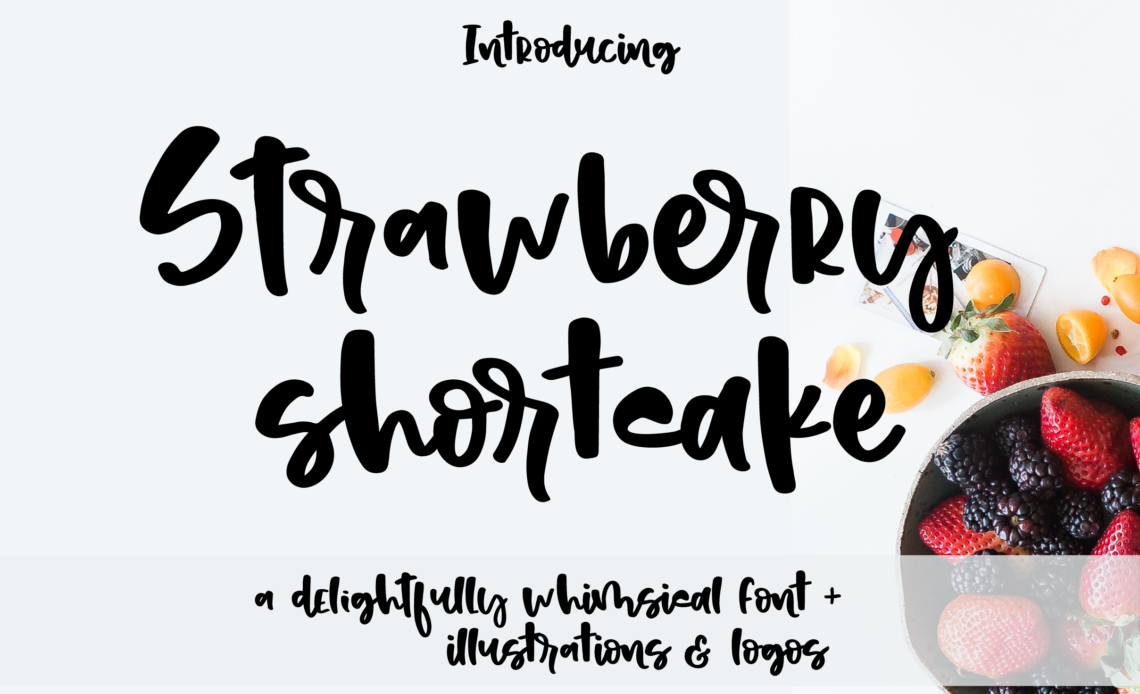
Strawberry Shortcake Font
Step into a world of delightful charm and whimsical elegance with Strawberry Shortcake Font, a captivating script font that dances off the page with its playful and enchanting aura. Crafted with meticulous care and love by the talented artists at theinkaffair, this font is a masterpiece of digital artistry that will transform your creative projects into captivating visual feasts.
As its name suggests, Strawberry Shortcake Font exudes a sweet and inviting charm, reminiscent of sun-ripened berries and freshly baked treats. Its carefully crafted curves and flourishes evoke a sense of joyous celebration, making it the perfect choice for adding a touch of lightheartedness and playfulness to your designs.
Whether you're a seasoned designer seeking to elevate your work or a creative enthusiast looking to add a unique touch to your projects, Strawberry Shortcake Font is the perfect companion for your artistic journey. Its versatility knows no bounds, lending itself effortlessly to a wide array of creative endeavors, from whimsical invitations and cheerful greetings to enchanting social media posts and eye-catching branding materials.
Indulge in the delightful world of Strawberry Shortcake Font and let your imagination run wild. Embark on a creative adventure where every word blossoms into a work of art, every design radiates with individuality, and every project becomes a visual masterpiece. Dive into the realm of this enchanting font and experience the transformative power of its playful charm.